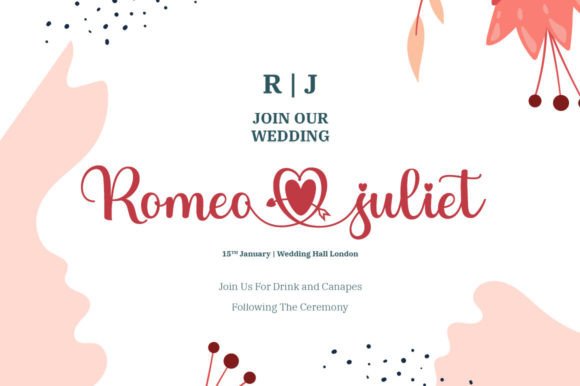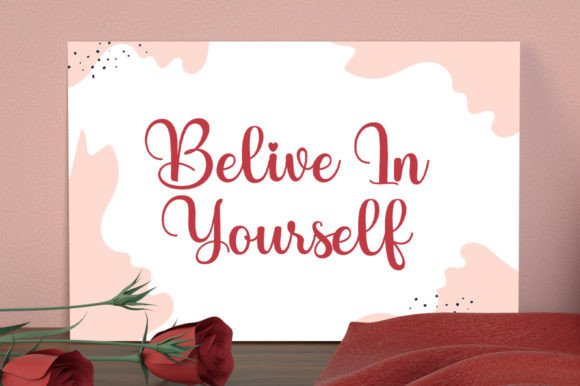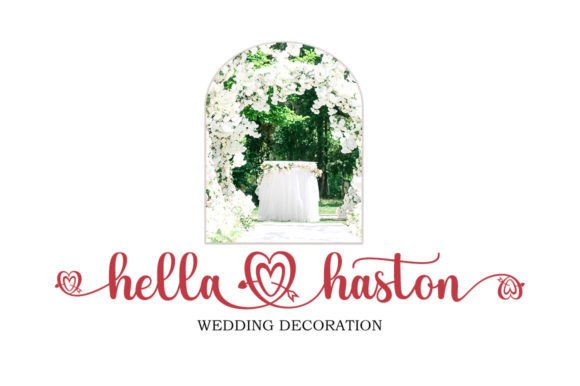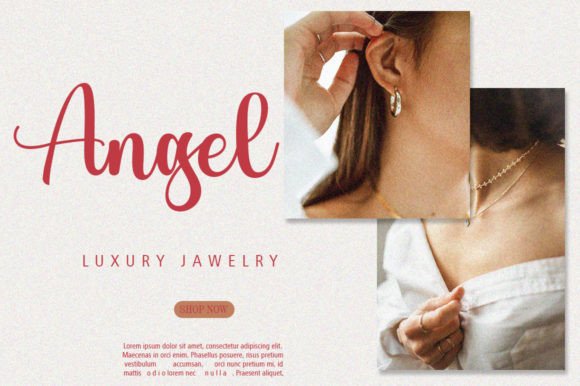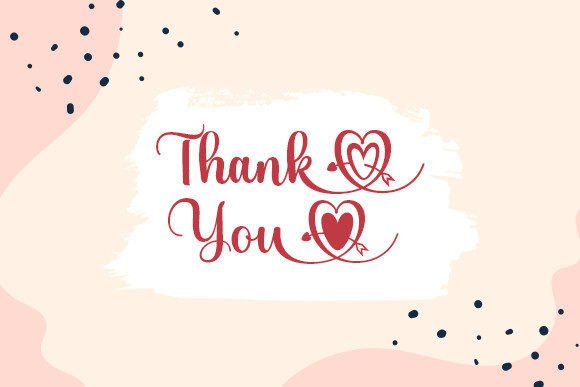
The Perfect Font for Expressing Eternal Love
Have you ever found yourself struggling to find the right words to express your deepest feelings to someone you love? Maybe it was a romantic proposal, a heartfelt apology, or a sweet anniversary message. Whatever the occasion, we’ve all been there, searching for the perfect font to convey our emotions. That’s where the Angel Love Font comes in – a beautiful calligraphic script font that captures the essence of romance and elegance.
This charming font is designed to bring a touch of sophistication to any design, making it perfect for wedding invitations, love letters, and branding materials. As a designer, you’ll appreciate the Angel Love Font’s PUA encoding, which allows you to access all the glyphs and ligatures with ease, making it a valuable addition to your design arsenal.
Angel Love Font Key Features
- Font Family: Angel Love Font is a unique, hand-drawn font designed to convey love and affection.
- Character Set: Includes a wide range of characters, including uppercase and lowercase letters, numbers, and punctuation marks, making it suitable for various applications.
- Unique Characteristics: The Angel Love Font features intricate details, swirling patterns, and a romantic feel, making it perfect for expressing love, affection, and emotions.
Angel Love Font Review
Overall, I have mixed feelings about the “Angel Love Font”. While it’s not a bad font, it doesn’t particularly stand out in my opinion. However, there are some aspects where it shines.
- ✨ Beautiful and elegant touch: The font has a beautiful and elegant touch to it, perfect for creating a romantic atmosphere.
- ✨ Versatile: This font can be used for a variety of purposes, from wedding invitations to greeting cards.
- ✨ Playful and whimsical: The font has a playful and whimsical feel to it, which makes it great for children’s books or other fun projects.
- ⚠️ Limited versatility in digital use: While the font looks great in print, it can be quite challenging to read in digital format.
- ⚠️ May not be suitable for formal documents: Due to its playful nature, this font may not be suitable for formal documents or business reports.
Overall, I would give the “Angel Love Font” 3 out of 5 stars. While it has its strengths, it also has some limitations that prevent it from being a top choice for me. However, it can still be a great option for the right project.
For the best results, use the Angel Love Font in combination with other decorative elements, such as flourishes or borders, to create a cohesive and visually appealing design.
Experiment with different font sizes and styles to add emphasis and create visual interest.
The Angel Love Font is perfect for:
- Valentine’s Day cards and gifts
- Love-themed social media posts and graphics
- Romantic book covers and marketing materials